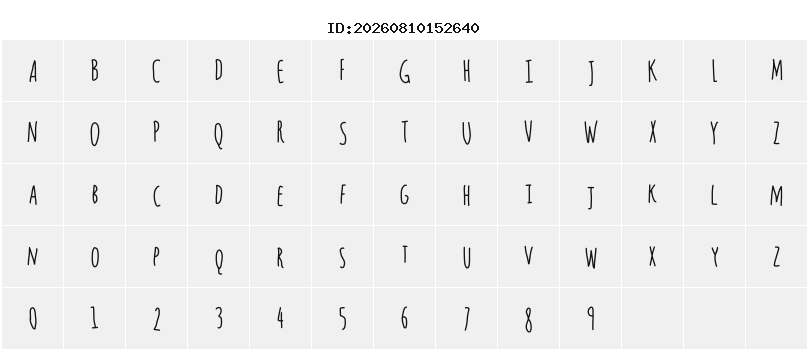
• Font Name: Questions
• Full Font Name: Questions
• PostScript Name: Questions
About Questions.ttf
Questions.ttf is a modern, elegant sans-serif font designed for ultimate readability and visual harmony. Perfect for branding, headlines, web design, and print materials.